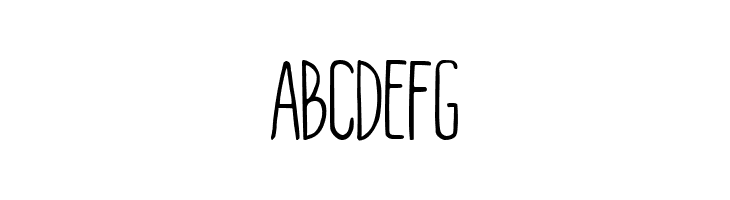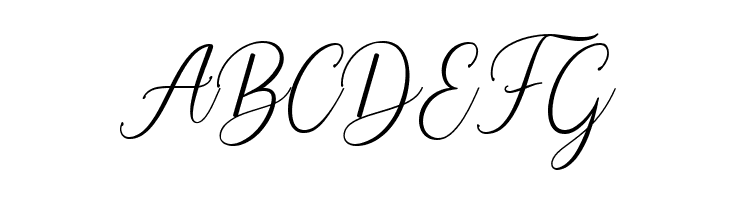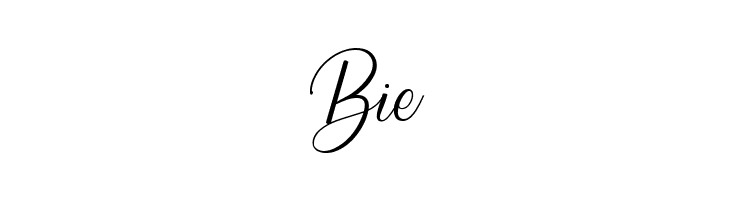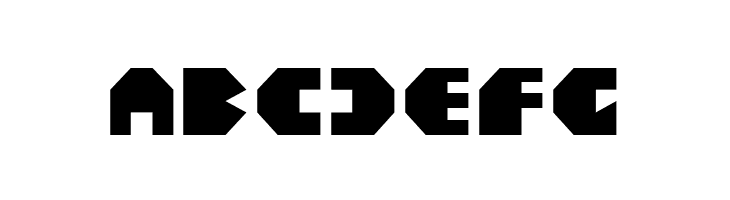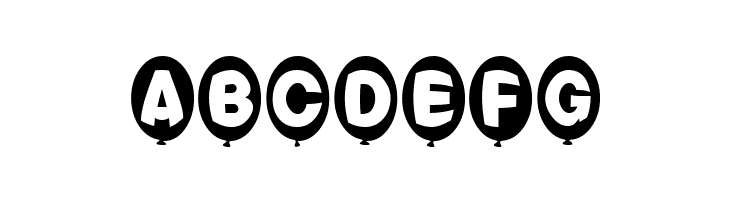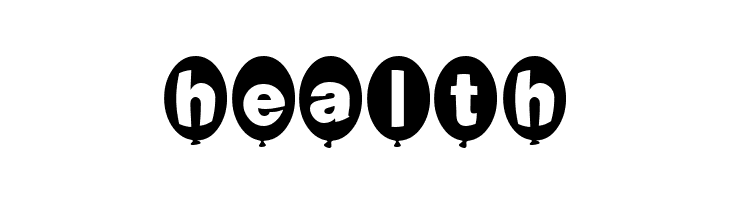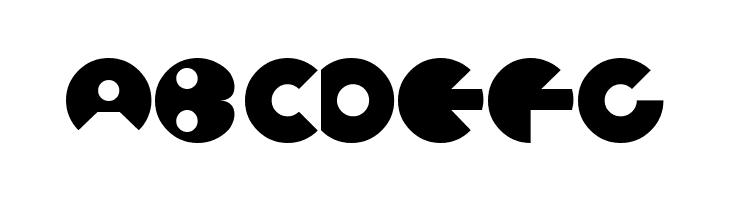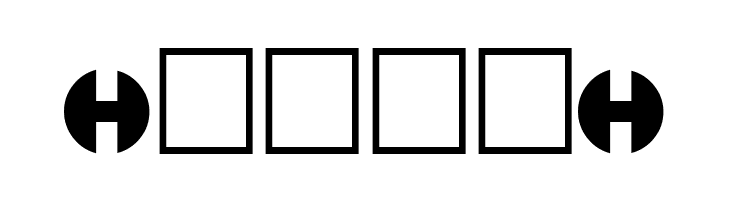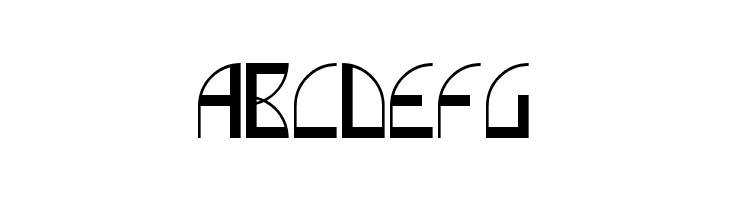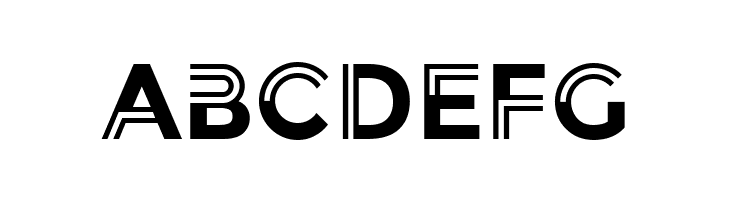
A modern, minimalist font with geometric and sleek design.
A playful, handwritten font with tall, narrow letters and a modern feel.
A bold, geometric font with a modern and impactful design.
A graceful and elegant cursive font with flowing, intricate characters.
An artistic, calligraphic font with elegant curves and decorative flourishes.
A bold, geometric font with circular elements and a modern, playful style.
A playful font with characters inside balloon shapes, perfect for festive designs.